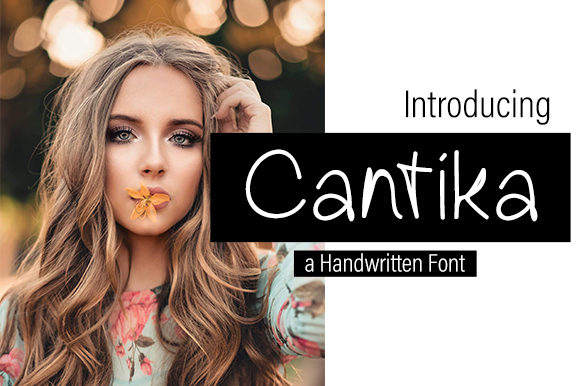
Introducing Cantika Font, a charming and lovable script font that exudes authenticity and charisma, ready to transform your creative visions into captivating masterpieces. Embrace the artistry of Cantika as it dances across your digital canvas, adding a touch of endearment and playfulness to every project. Its endearing strokes and swirling characters evoke a sense of warmth and genuine connection, making it the perfect choice for heartwarming designs.
With Cantika Font gracing your creations, you'll effortlessly craft designs that resonate with your audience, leaving an imprint of affection and inspiration. It beautifully captures the essence of heartfelt messages, personal branding, and whimsical storytelling, inviting your readers to embark on a journey of delight and charm.
Cantika Font is not just a font; it's an expression of your creativity, a reflection of your unique style. Its versatility knows no bounds, lending its enchanting touch to a wide array of projects. Whether you're creating logos, branding materials, invitations, greeting cards, or captivating social media posts, Cantika Font will effortlessly elevate your designs and leave a lasting impression.
Step into the world of Cantika Font and unlock a realm of infinite possibilities. Experience the joy of creating designs that speak volumes, capturing the essence of human connection and the beauty of genuine expression. Let Cantika Font be your creative muse, guiding you towards designs that resonate, inspire, and bring a smile to the faces of those who encounter them.